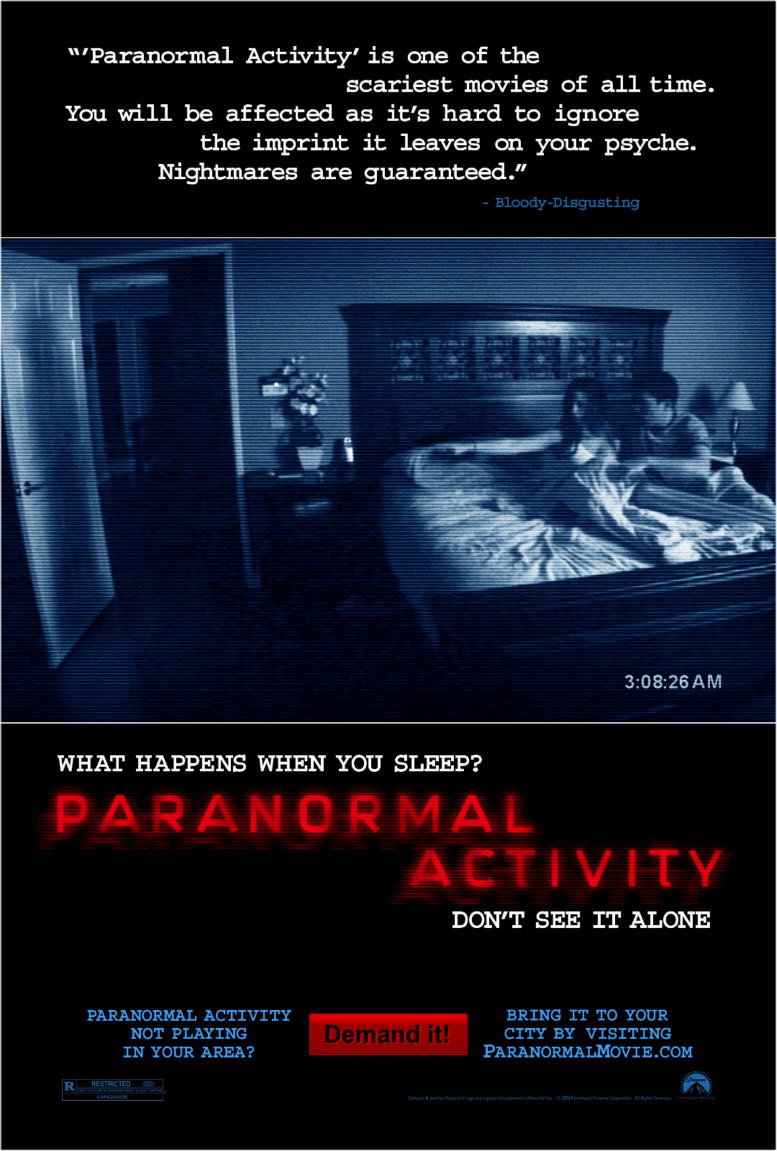
Paranormal Activity Font
Fonts in UseParanormal Activity is a 2007 found footage horror film directed by Oren Peli, which follows a young couple who set up cameras in their home to capture evidence of a demonic presence. The film's low-budget and documentary-style approach helped it become a box office hit and spawned a successful franchise.
The film "Paranormal Activity" title on the poster bears a resemblance to Kautiva Bold, a contemporary sans serif font designed by Alejandro Paul. Meanwhile, the slab serif font used for the text blocks is Courier Bold by Howard Kettler.